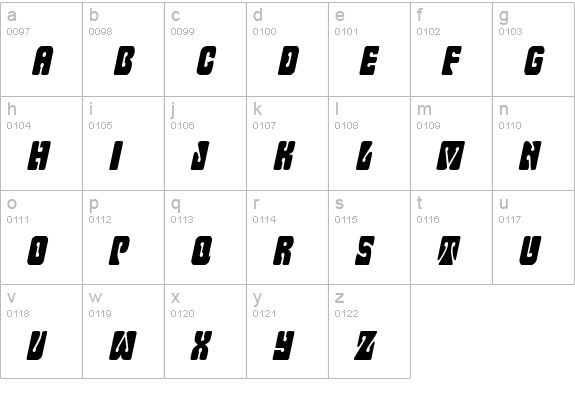
WavyOrnamentalCondensed Oblique Font Details
WavyOrnamentalCondensed Oblique is a distinctive, italic variant in the WavyOrnamentalCondensed typeface family \xE2\x80\x94 well suited to design and typography projects.
Introducing WavyOrnamentalCondensed Oblique font, a stunningly unique and creatively designed typeface that will add a touch of elegance and sophistication to any project. This font is perfect for those looking to make a bold statement or create a visually captivating design. WavyOrnamentalCondensed Oblique font features beautifully intricate wave-like patterns that flow effortlessly across each letter, creating a mesmerizing visual effect. The condensed and oblique style adds a sense of modernity and dynamic energy to the font, making it stand out from the crowd. Whether you're designing a logo, poster, invitation, or any other creative project, WavyOrnamentalCondensed Oblique font is sure to leave a lasting impression. Its versatility allows it to be used in a variety of contexts, from elegant and formal to edgy and contemporary. One of the best things about WavyOrnamentalCondensed Oblique font is that it is freely available to download at FontsMarket.com. This means that you can easily access and use this font for your personal or commercial projects without any restrictions. The convenience of having a high-quality, beautifully designed font at your fingertips is invaluable and will save you time and effort in your creative endeavors. Don't miss out on the opportunity to elevate your designs and make them truly unforgettable. Download WavyOrnamentalCondensed Oblique font today and let your creativity soar to new heights.